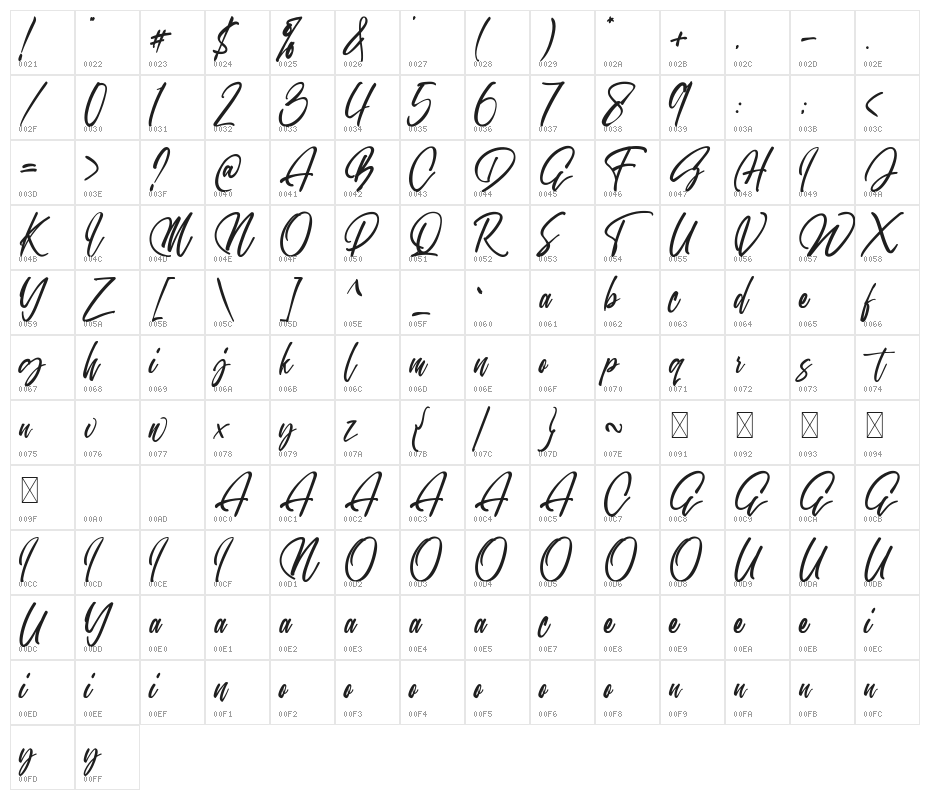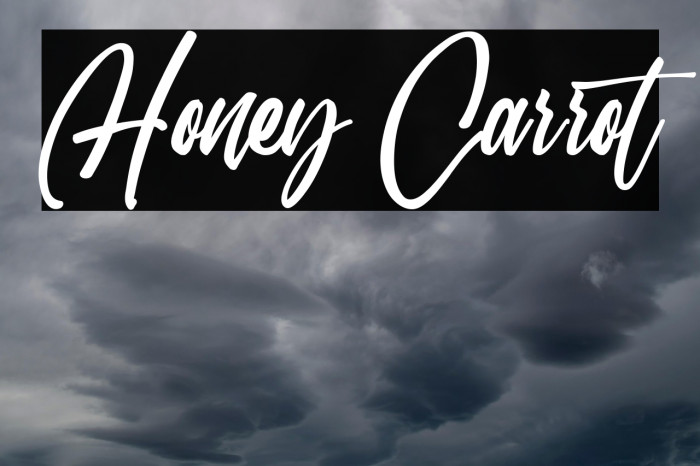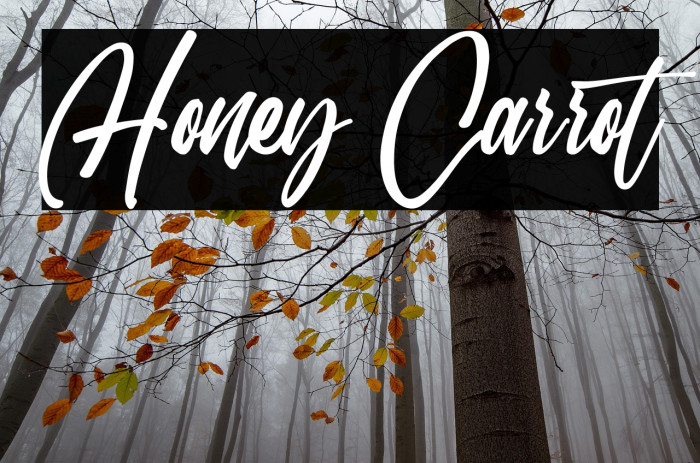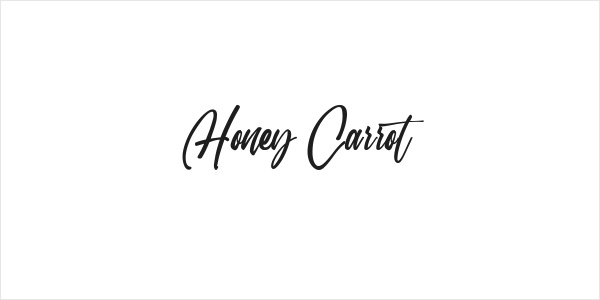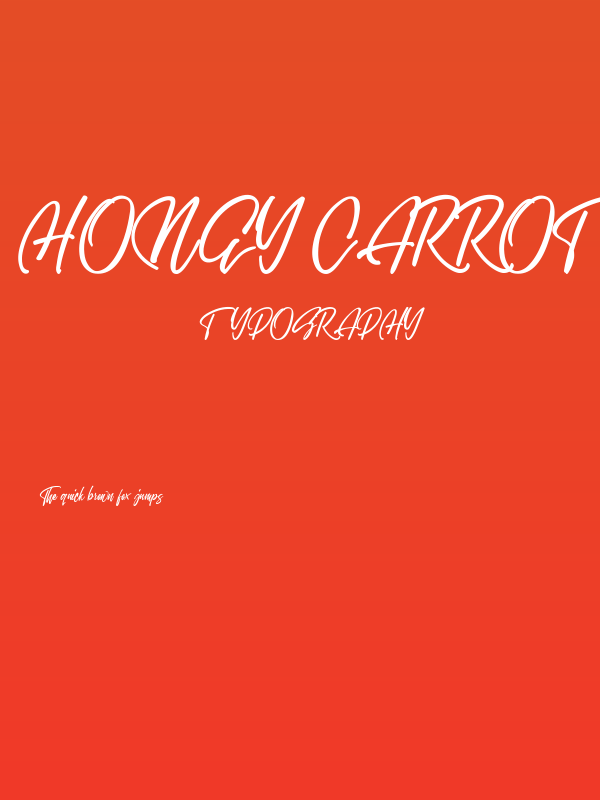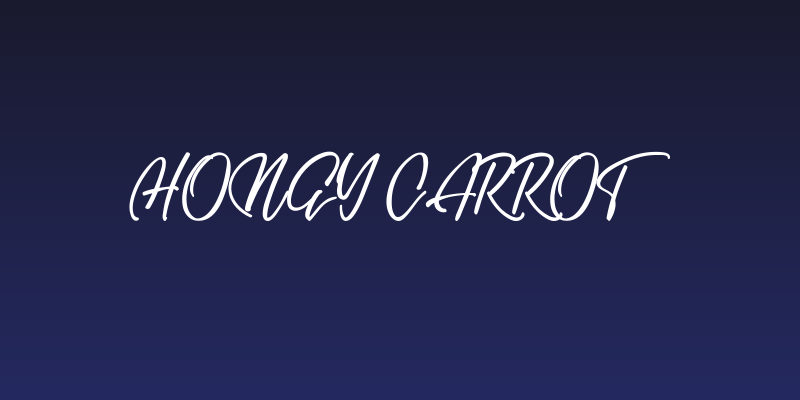
Honey Carrot Font
Honey Carrot Description
This font exudes a lively and dynamic energy, characterized by its fluid, cursive style that mimics natural handwriting. The letters are connected with smooth, sweeping strokes, giving it an elegant and personal touch. The uppercase letters are slightly more structured, while the lowercase letters flow seamlessly into one another, creating a harmonious and continuous script. The numbers and special characters maintain the same fluidity, ensuring a cohesive look across all elements. This font's playful yet sophisticated style makes it versatile for various creative applications.
| Use Case | Logos, Invitations, Social Media |
| Proposed Projects | Ideal for wedding invitations, greeting cards, branding projects, and social media graphics. |